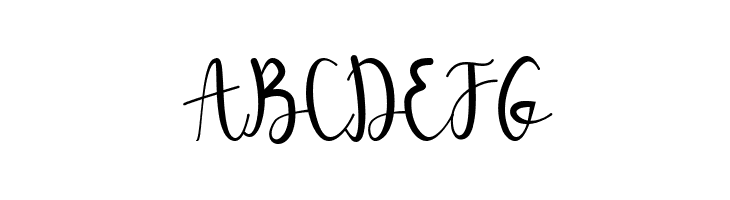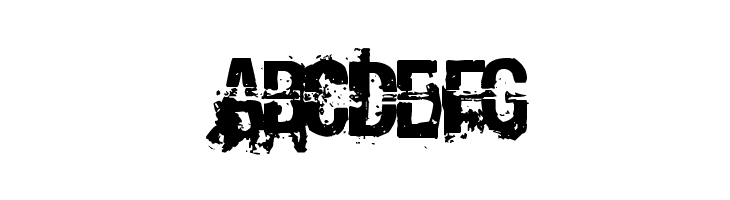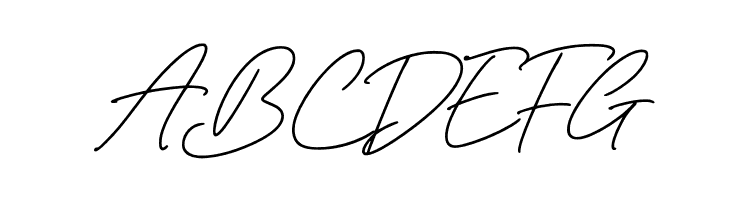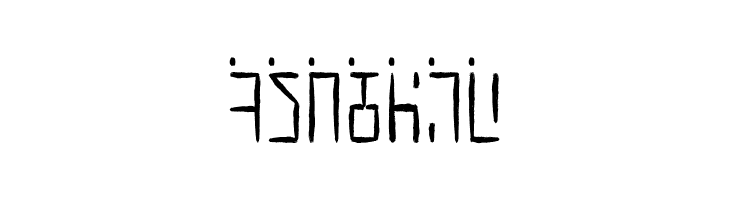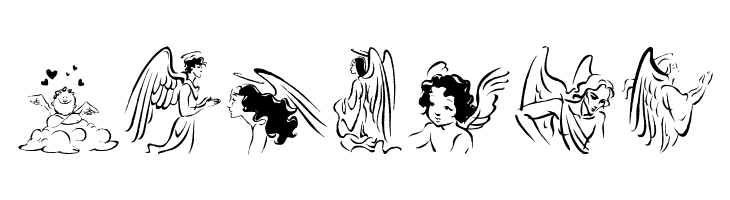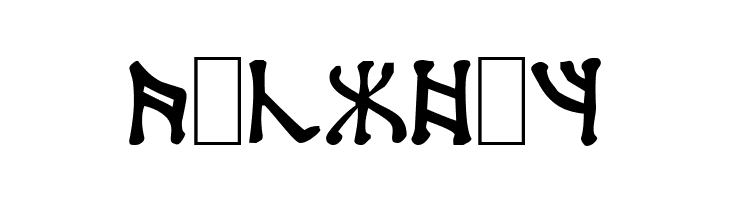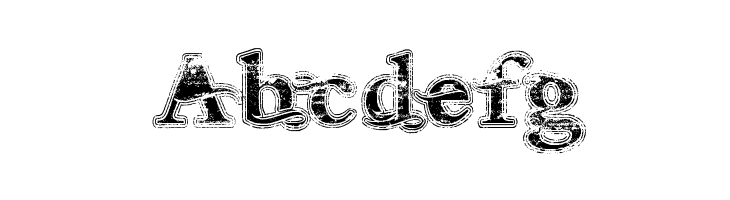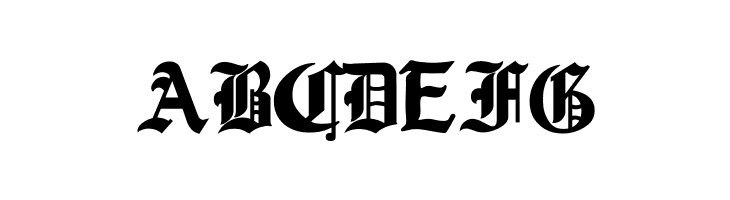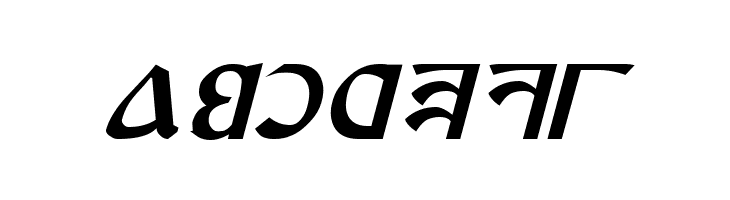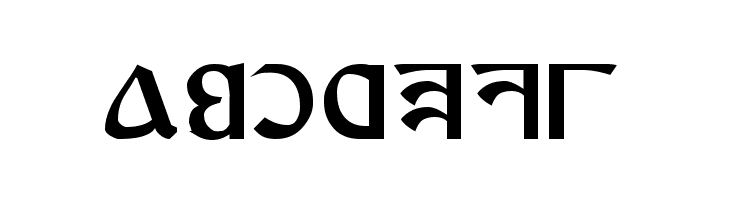
A playful and elegant script font with a handwritten style.
A lively and expressive handwritten font with fluid, artistic letterforms.
Elegant handwritten script font.
A bold, rounded font with a playful and chunky style.
A bold, dripping font perfect for horror or Halloween themes.
A bold, dripping effect font with a playful and eerie style.
A bold, playful font with a unique dripping effect, ideal for eye-catching designs.
A flowing, cursive font with elegant, sweeping lines and intricate flourishes.
An elegant and sophisticated script font with intricate swashes and flourishes.
An elegant, cursive font with ornate flourishes and a handwritten style.
A bold, graffiti-inspired font with sharp, angular lines and dynamic energy.
A bold, distressed font with a grunge, stamped appearance.
A raw, edgy, hand-drawn style with jagged, uneven strokes.
A playful, casual handwritten font with fluid strokes and a friendly appearance.
A bold, geometric font with calligraphic influences, perfect for creative and modern designs.
A bold, geometric font with sharp edges and a modern-traditional blend.
A bold, italicized font with dynamic slant and angular design.
A dynamic italic font with sharp serifs and a modern, artistic style.
A bold, decorative blackletter font with high contrast and ornate details.
An ornate, decorative font with intricate detailing and a vintage flair.
A graceful, flowing script font with elegant, connected strokes.
A decorative set of angel-themed illustrations with intricate line work.
A bold, high-contrast font with sharp angles and a gothic flair.
A playful, bold font with rounded, bubbly characters ideal for informal designs.
A playful, bold font with rounded strokes and a hand-drawn feel.
A playful and elegant script font with a handwritten touch.
A bold, energetic handwritten font with dynamic curves and a playful style.
A bold, geometric font with an angular, octagonal design and a three-dimensional effect.
A bold, futuristic font with geometric shapes and sharp angles.
A bold, italicized font with a futuristic and dynamic design.
A fluid, cursive font with a natural handwritten style.